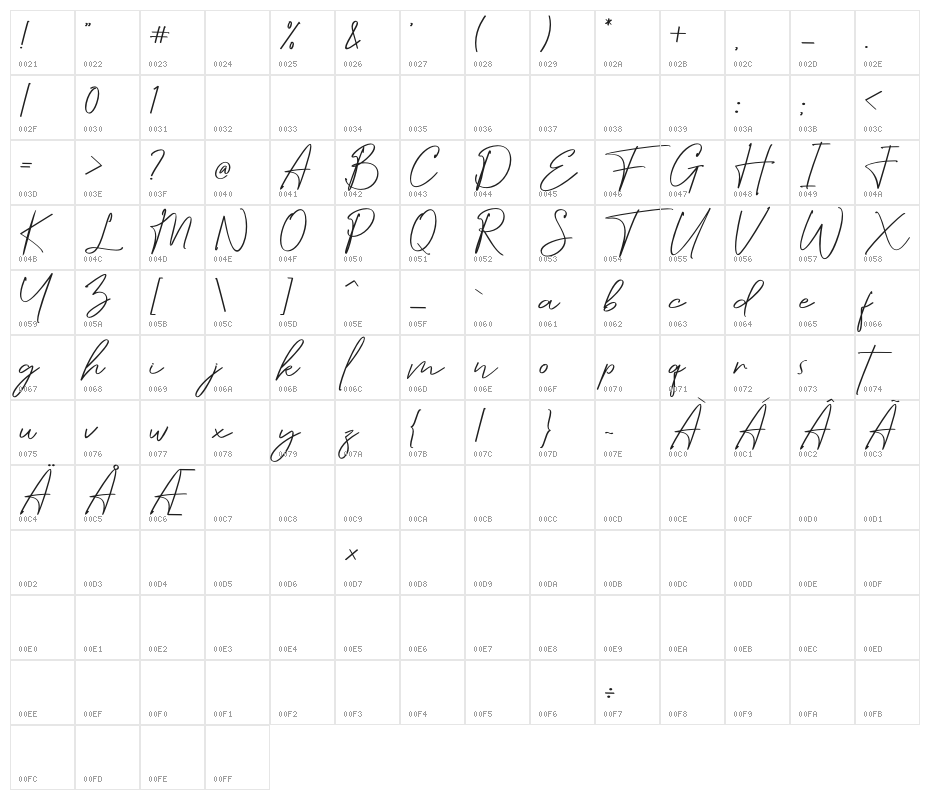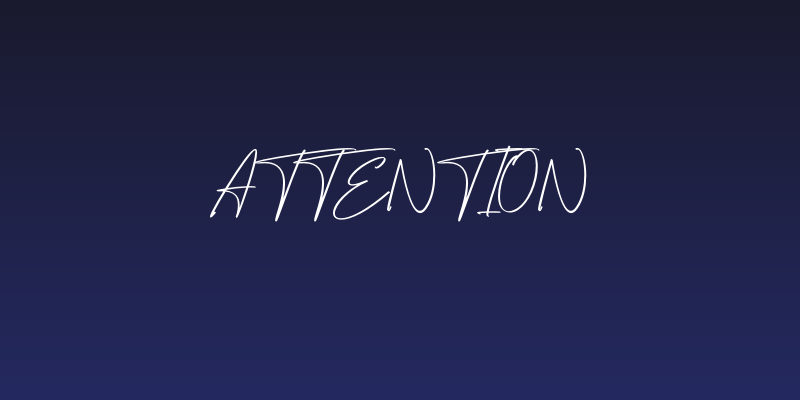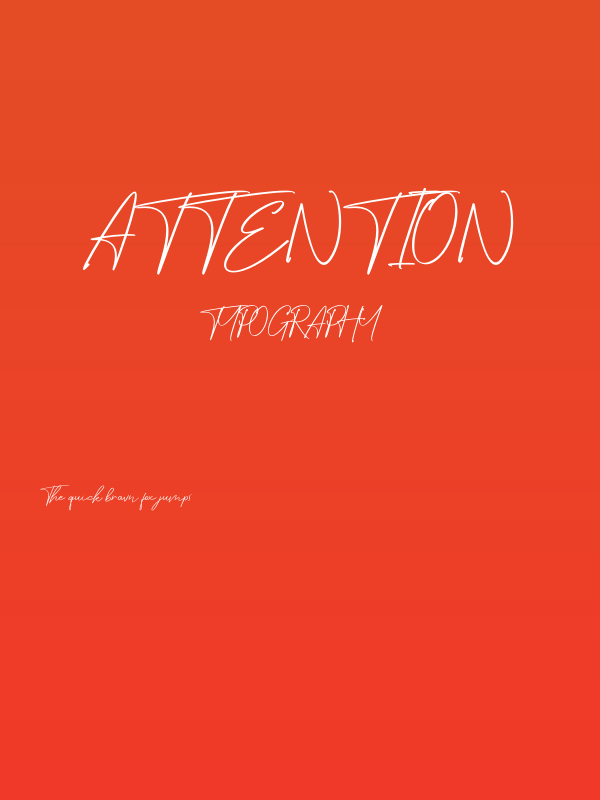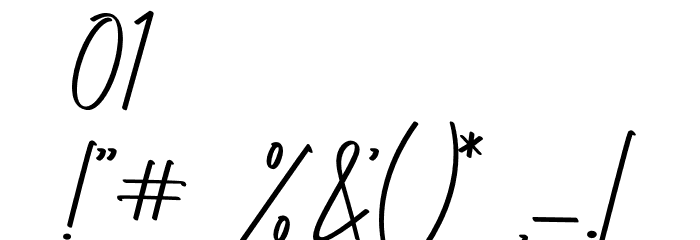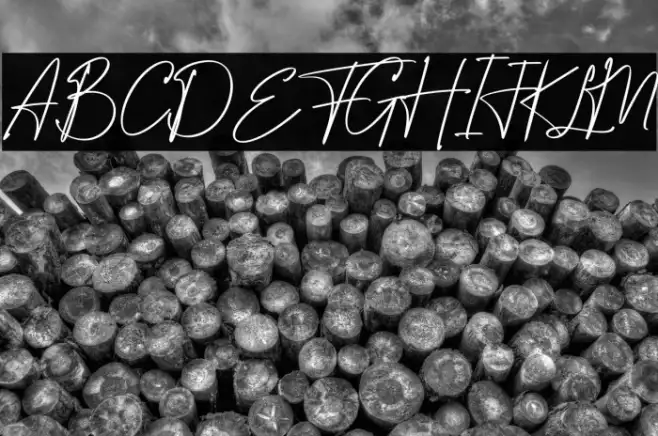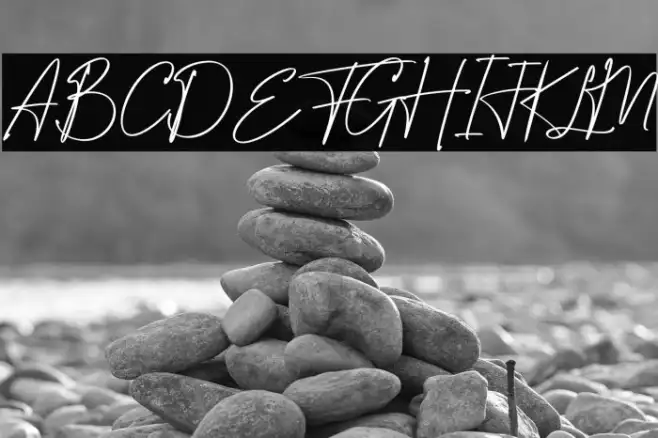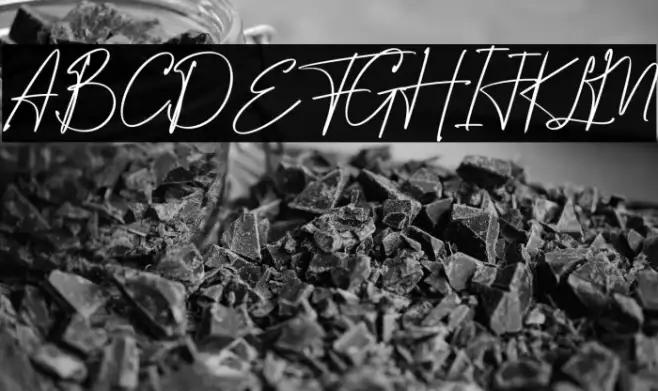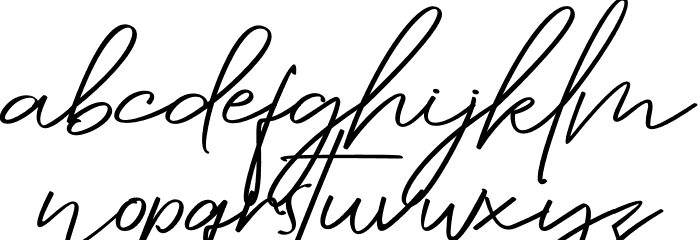
Attention Font
Attention Description
This font exhibits a dynamic and expressive handwritten style, characterized by fluid and interconnected strokes that mimic natural handwriting. The uppercase and lowercase letters maintain a consistent slant, adding to the cursive flow. The characters are elegantly elongated with a slight variation in stroke width, giving it a lively and personal touch. The numerals and special characters follow the same stylistic cues, ensuring uniformity across the typeface. This font's organic and spontaneous appearance makes it ideal for projects that require a personal or artistic flair.
| Proposed Projects | Ideal for personal invitations, artistic branding, greeting cards, and creative social media graphics. |